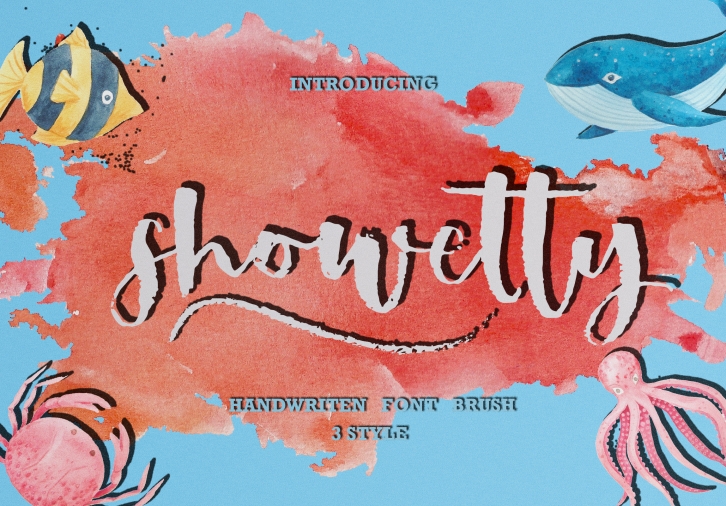
Showetty Brush Script 40 Off is a beautiful font that was designed by Best Font Studio. It's a great choice for designers and creatives who need such a font. It was released on September 5, 2017 and the file size is 9.45 MB. Showetty Brush Script 40 Off may give a more youthful, expressive and casual look to your project. It is a very beautiful, refined, elegant, and high-quality font.